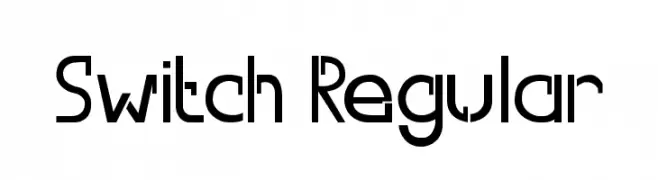
A futuristic, geometric font with sharp angles and a modern style.
A modern, geometric font with clean lines and a futuristic style.
A bold, geometric font with a modern and futuristic style.